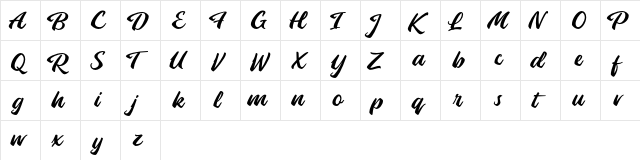
Launch Attack Regular
| Designer | herlannawwi |
Design Context for Launch Attack Typeface
Launch Attack is a composed and adaptable typeface that performs quietly and consistently across a wide range of design contexts.